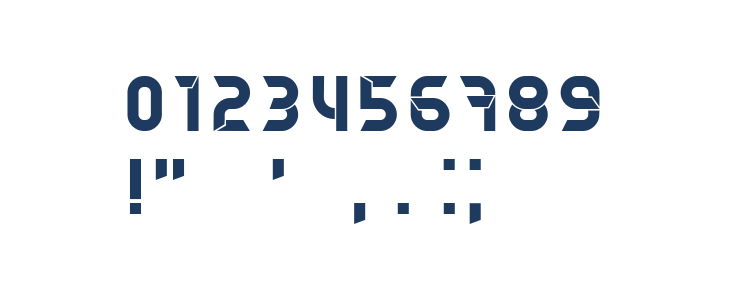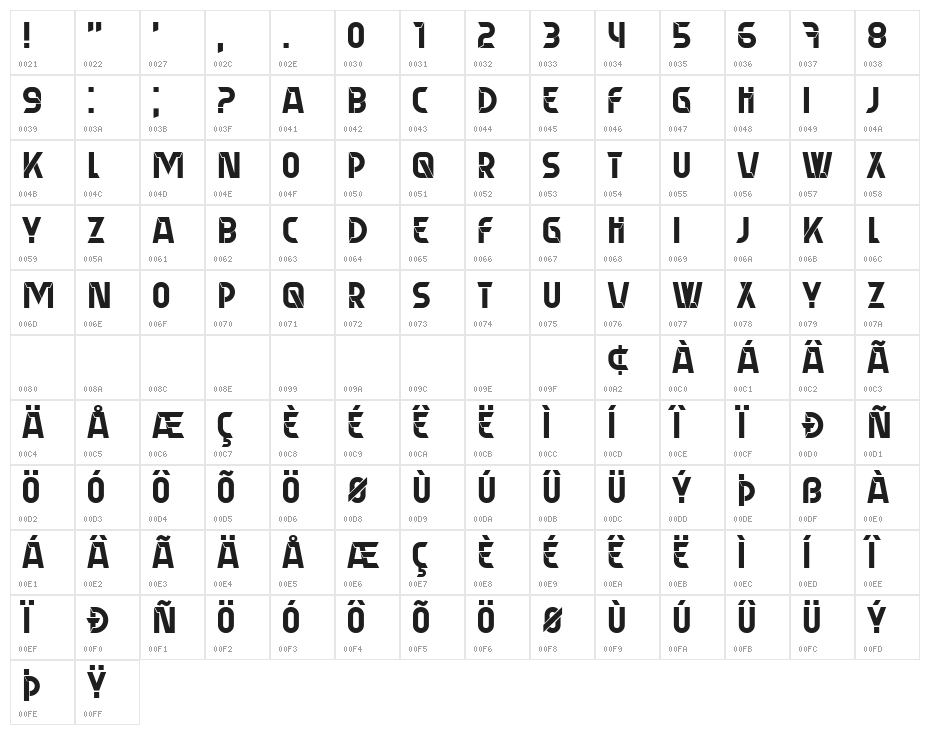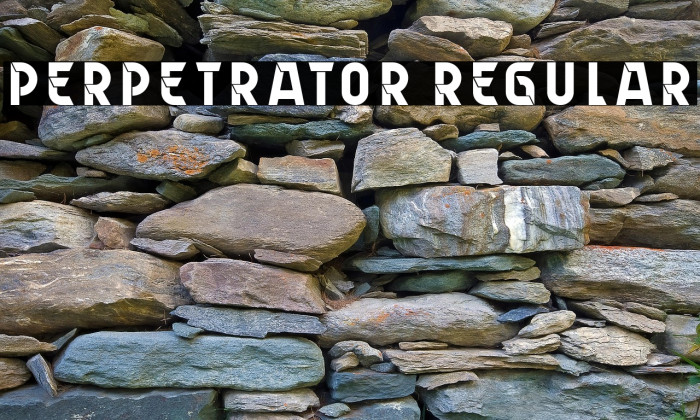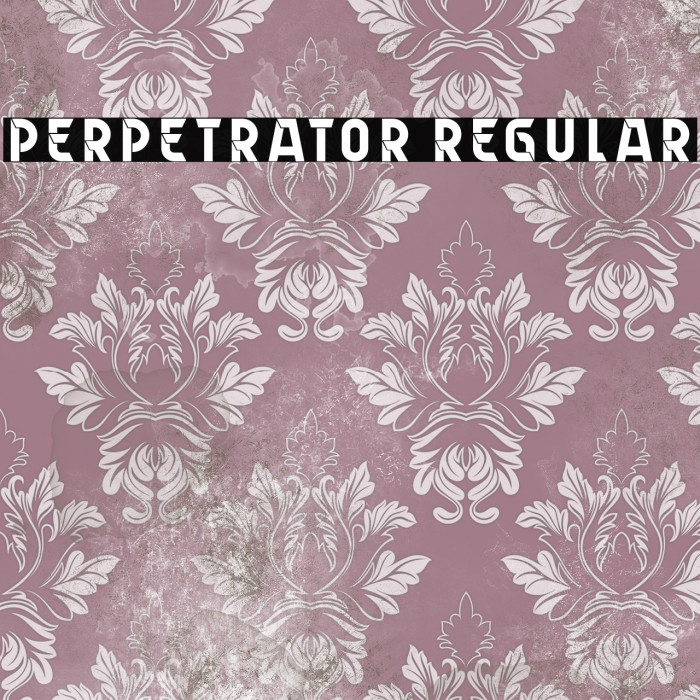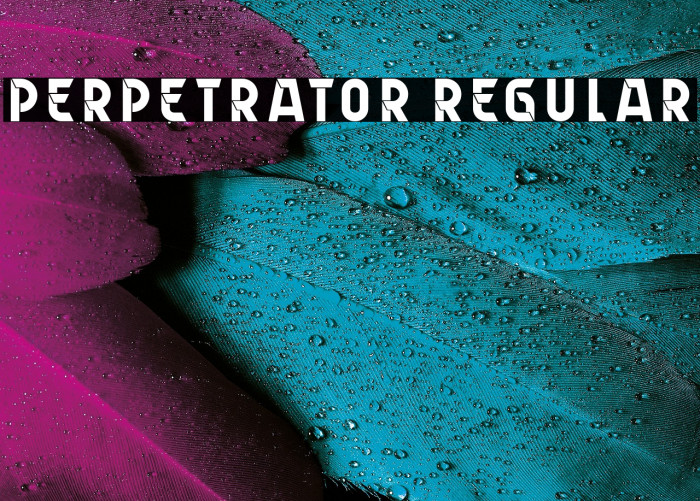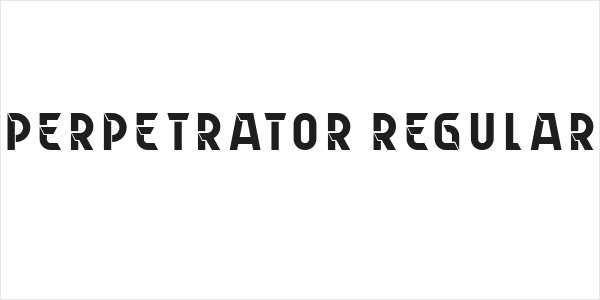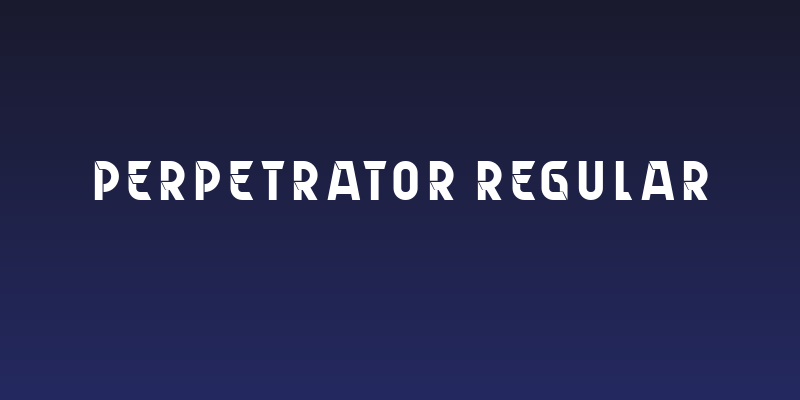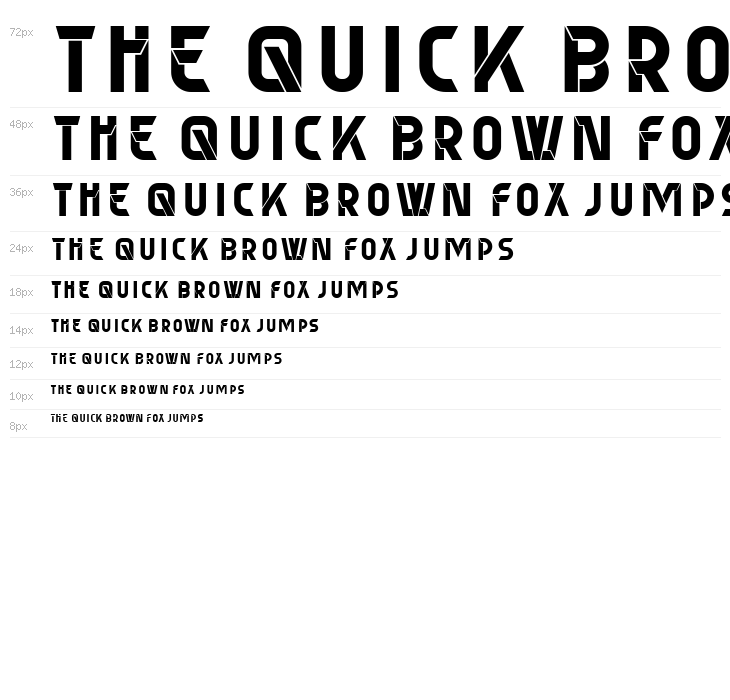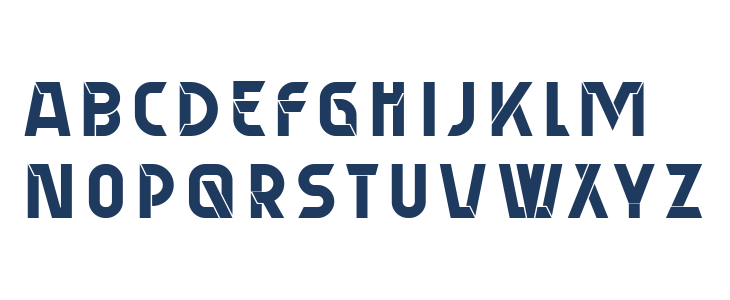
Perpetrator Regular Font
Perpetrator Regular Description
This font features a bold and modern design with a unique geometric style. Each character is crafted with sharp angles and distinct cutouts, creating an eye-catching and futuristic appearance. The uppercase and lowercase letters maintain a consistent style, while the numbers and special characters complement the overall aesthetic. The font's design is both innovative and versatile, making it suitable for a variety of creative projects. Its bold presence and distinctive look make it ideal for use in branding, advertising, and digital media.
| Proposed Projects | Ideal for branding, advertising, digital media, and futuristic design projects. |